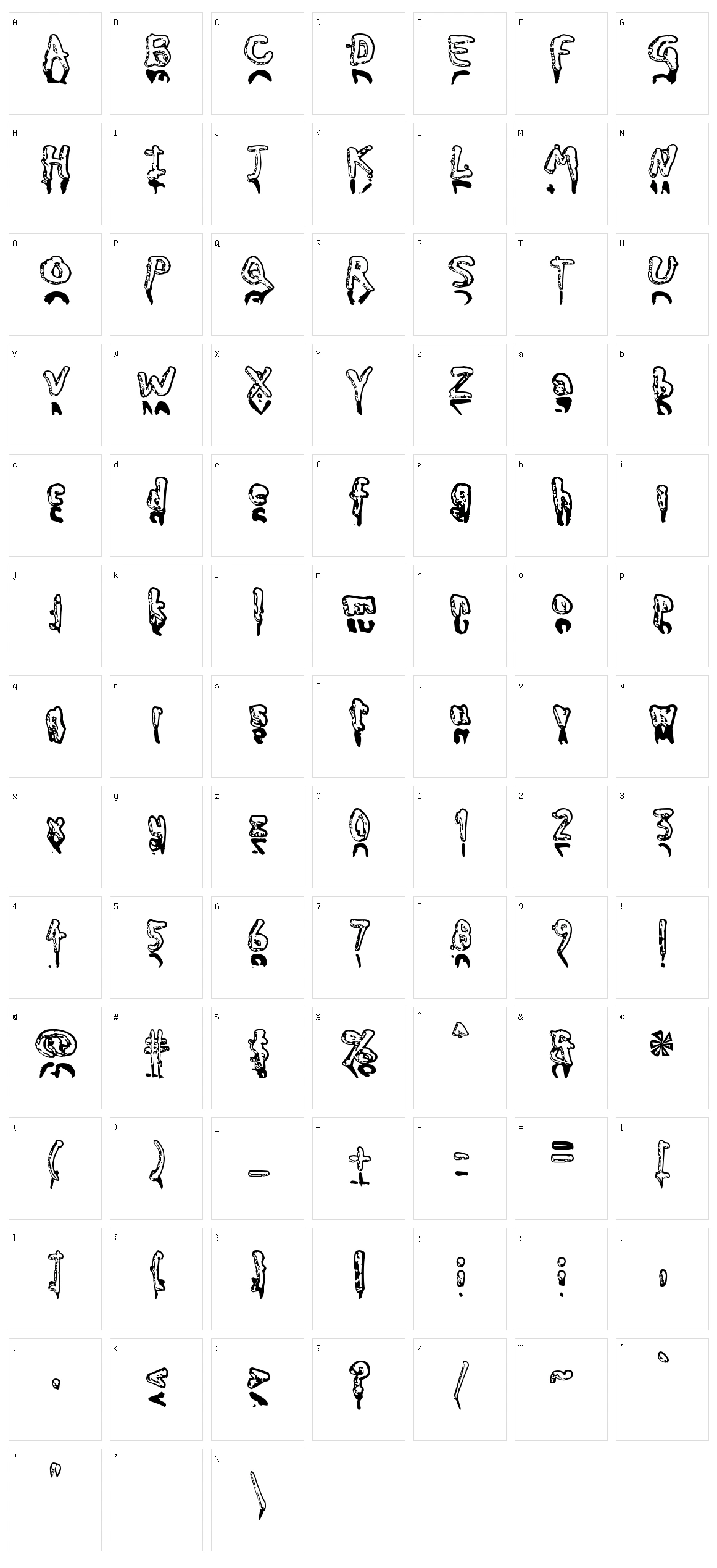
The free font My font is carefully designed by Amit Kumar, showcasing a thoughtful balance of creativity and usability and falls under the Cartoon font style. When you download the ZIP file, it contains only 46.88 KB of font files, making it lightweight and quick to download. Please review the license details below to understand permitted usage and distribution rights. If license information is not available, we recommend using this font for personal projects only or contacting the author directly for commercial usage permissions.